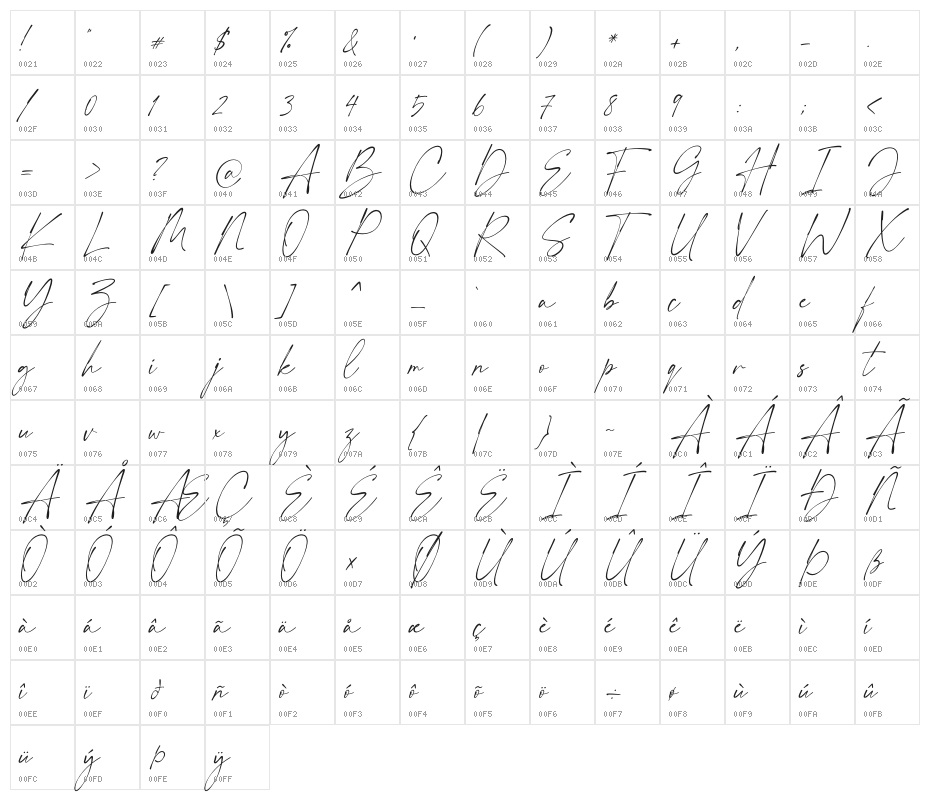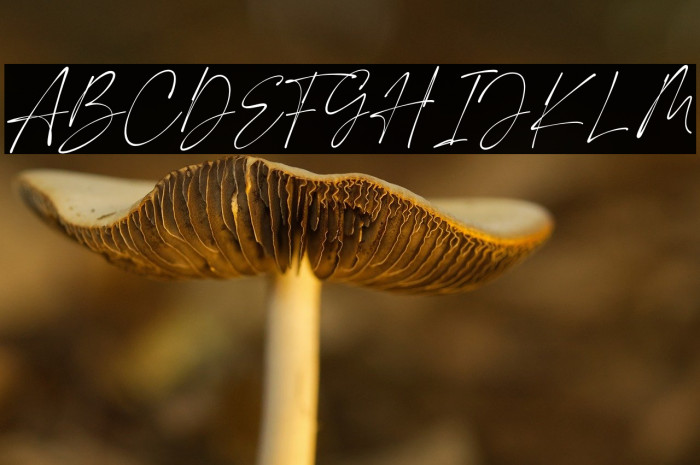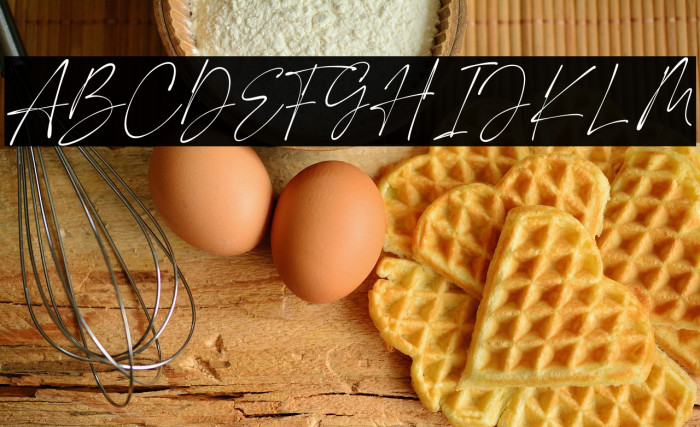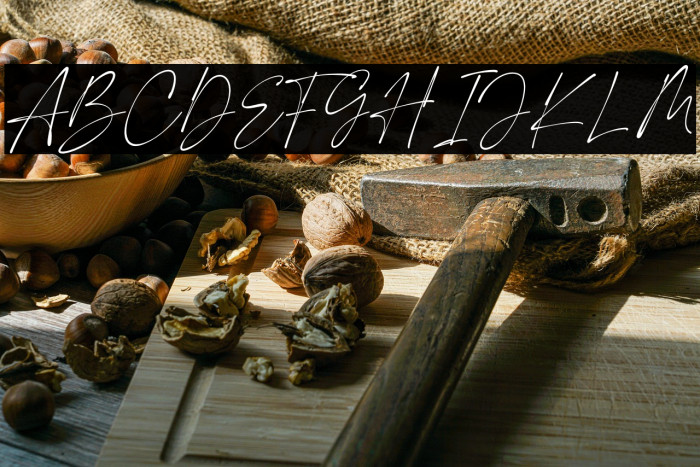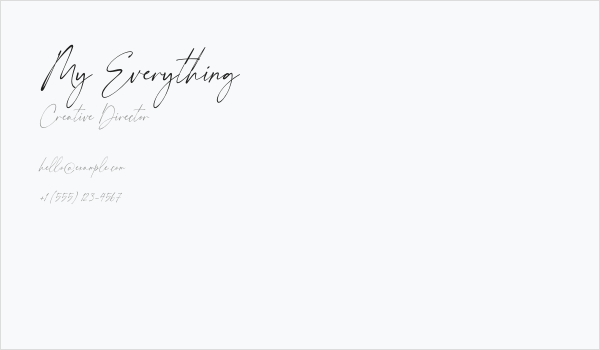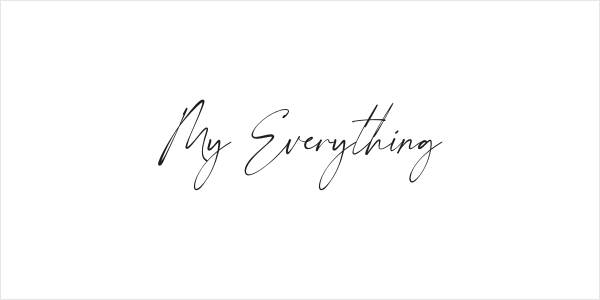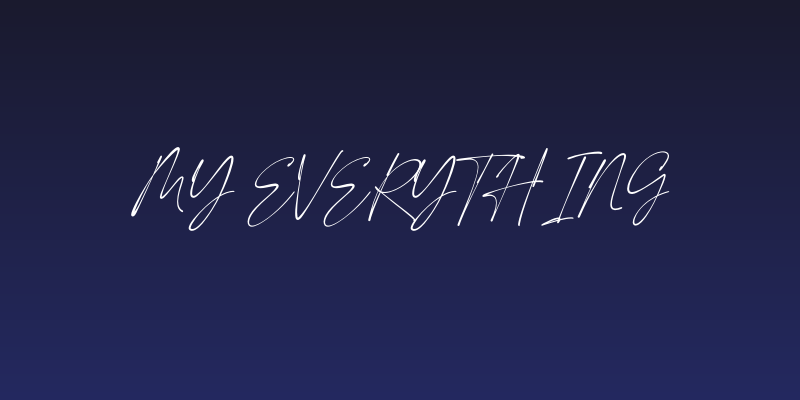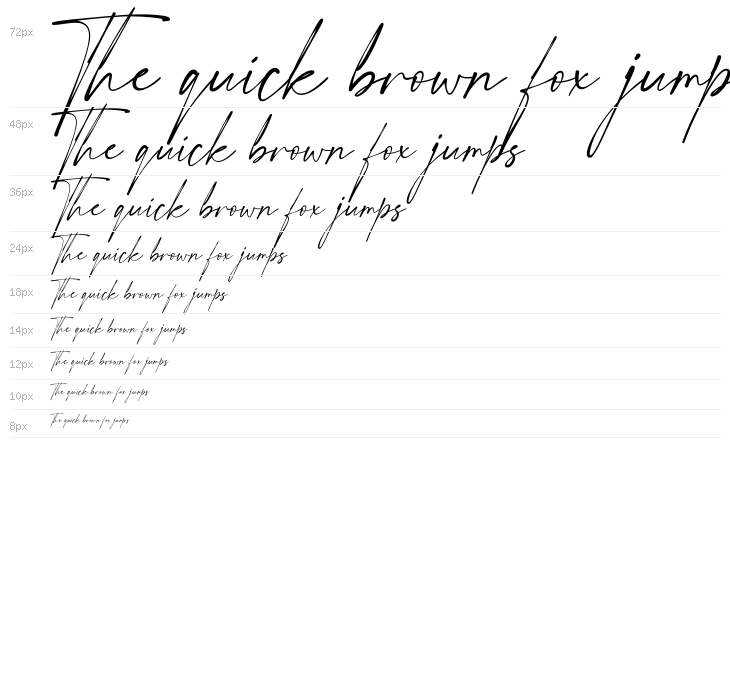
My Everything Font
My Everything Description
This font exudes a lively and expressive handwritten style, characterized by its fluid and dynamic strokes. The letters are elegantly connected, creating a sense of movement and personality. The uppercase letters maintain a consistent height, while the lowercase letters vary in size, adding to the font's playful nature. The numbers and special characters are crafted with the same attention to detail, ensuring a cohesive look throughout. This font is perfect for projects that require a personal touch, such as invitations, greeting cards, or branding materials that aim to convey warmth and creativity.
| Proposed Projects | Ideal for invitations, greeting cards, personal branding, and creative projects. |